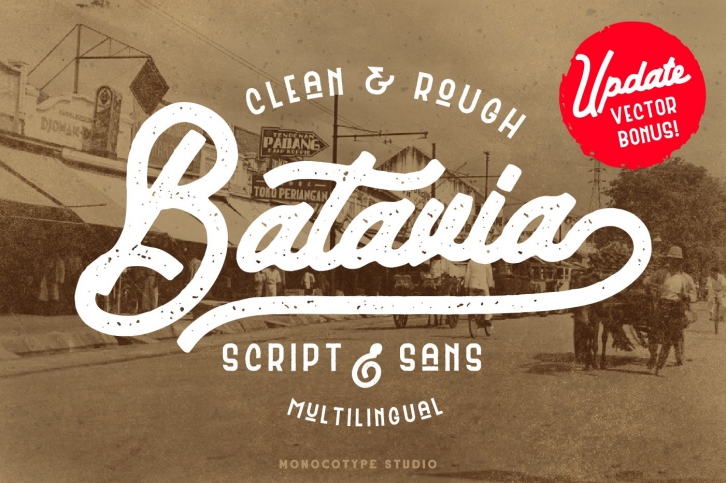
Batavia Script & Sans was crafted by hand inspired by the atmosphere of Batavia, a city in the Dutch East Indies which is now renamed Jakarta. Including Script and Sans which perfectly pairing each other to create vintage mood. It can be used in different purposes: lettering and logotype, labels, t-shirts, product packaging, invitations, advertising and any key text in design.